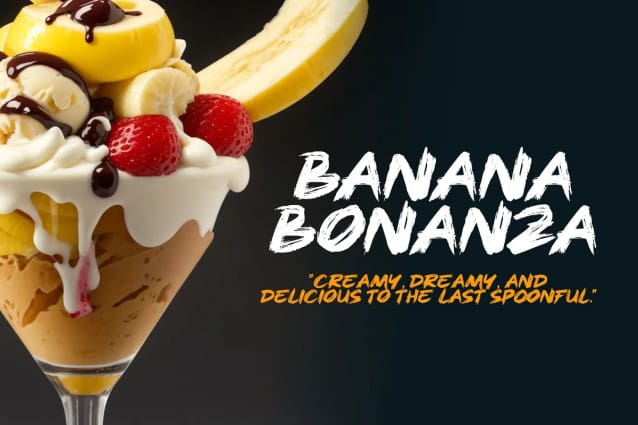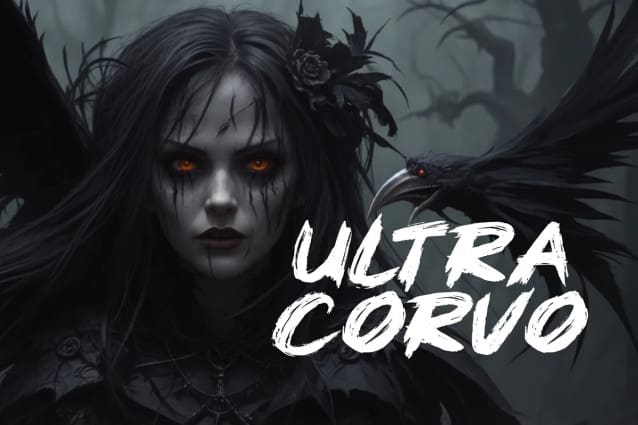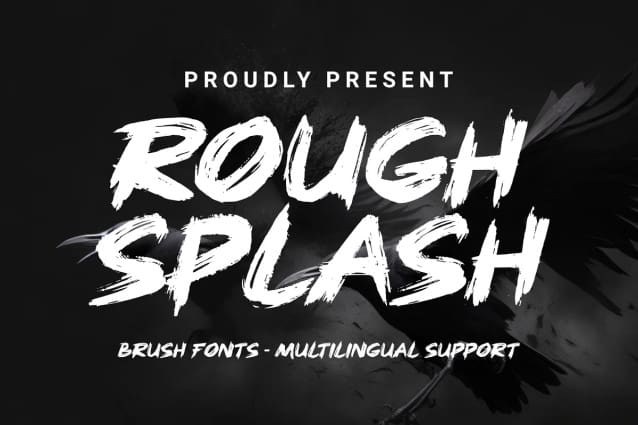
Rough Splash Font
Rough Splash Font provides a rough and energetic brush font for advertising branding design. With strong and expressive characters, this font creates a unique and striking appearance, perfect for capturing the attention of the target audience. The rough and spontaneous brush style on each letter creates a splash effect that brings a sense of courage and creative spirit. This font is suitable for representing brands that want to appear bold, modern, and innovative.